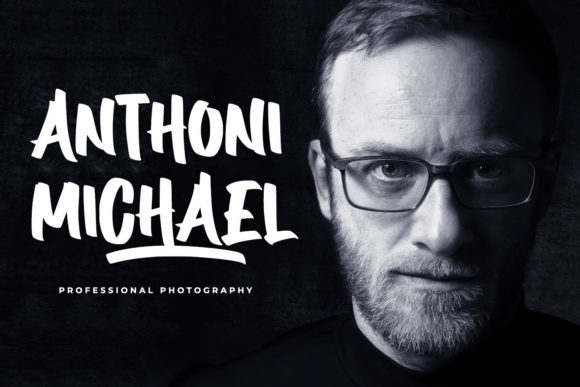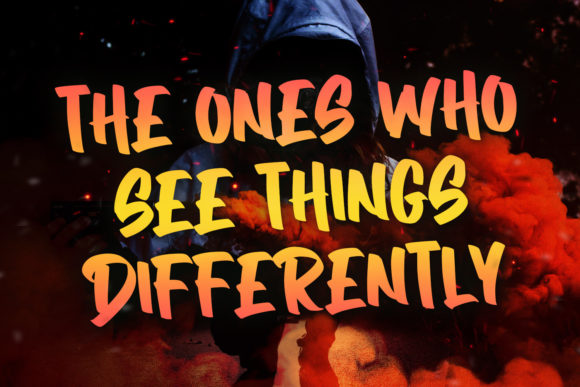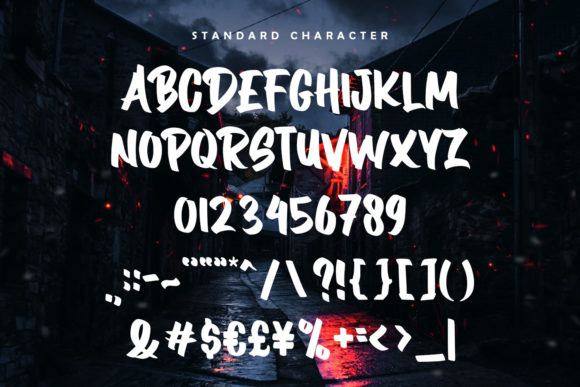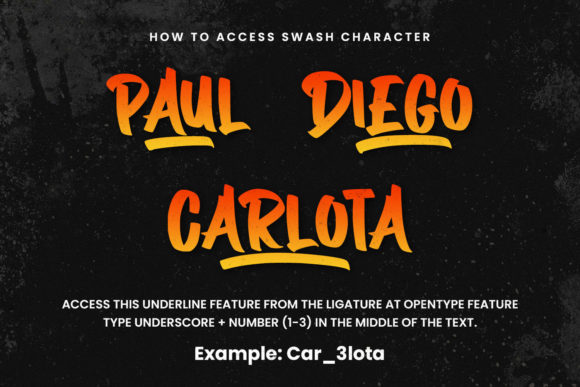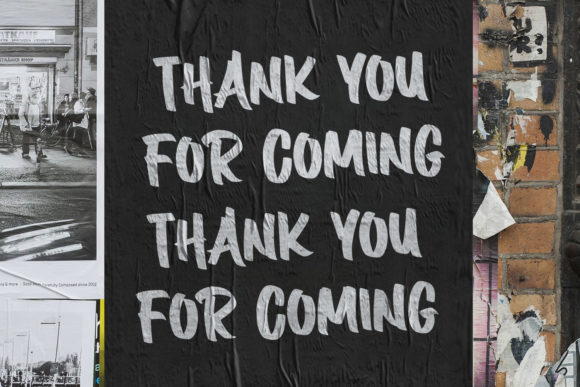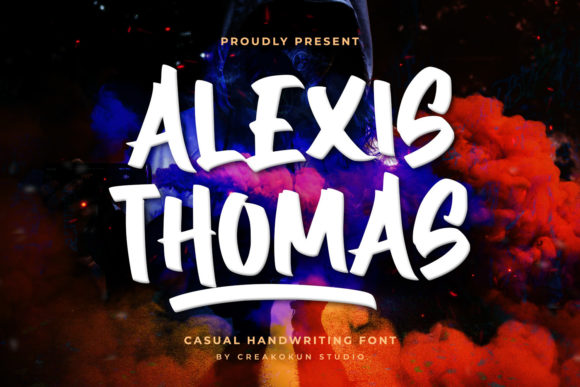
The Designer’s Delight: Alexis Thomas Font
As a designer, crafters, and creative hobbyist, I’m always on the lookout for fonts that can elevate my designs and make them stand out. And that’s exactly what Alexis Thomas does. This casual and paint-brushed display font is perfect for designs such as t-shirts, sportswear, logos, advertisements, clothing, and more.
- ✨ Unique and eye-catching design that’s perfect for making a statement
- ✅ Easy to read, even in larger or smaller sizes
- 🎨 Versatile and can be used for a wide range of design projects
- 👍 Highly legible, even when used in bold or italic styles
While Alexis Thomas is an amazing font, there are a few things to keep in mind. 🤔
- ⚠️ May not be suitable for body text or long paragraphs, as it’s best used for headlines or titles
- ⚠️ Some characters may not be suitable for use in all-caps or small-caps settings
The Alexis Thomas font was inspired by the works of Alexis Thomas, a renowned designer known for her bold and playful style. With a passion for creating unique and eye-catching designs, Alexis drew inspiration from her surroundings, combining different artistic elements to create something entirely new. The result is a font that’s both modern and timeless, perfect for designers who want to add a touch of personality to their work.
| Font Name | Alexis Thomas Font |
Q: What type of designs is Alexis Thomas best suited for?
A: Alexis Thomas is perfect for designs such as t-shirts, sportswear, logos, advertisements, clothing, and more.